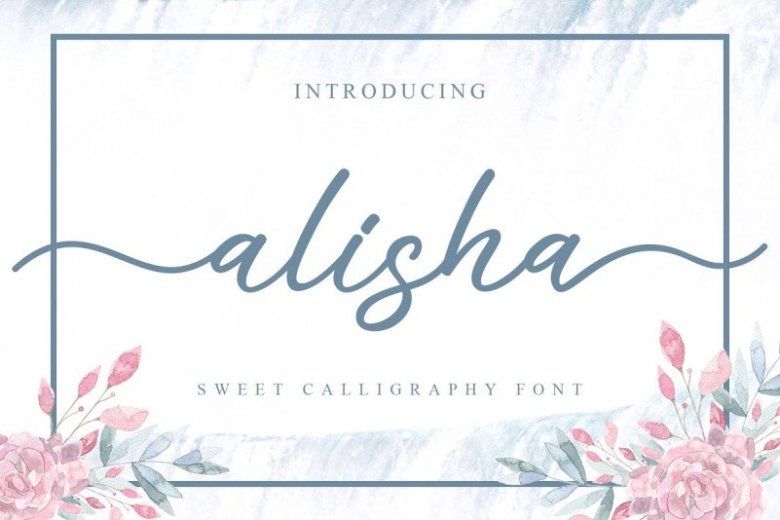
Alisha Sweet Calligraphy Font
This is unique stylish modern calligraphy fonts, combines from copperplate to contemporary typeface with a dancing baseline, modern and elegant touch! Introducing Alisha Font. Alisha – Sweet Calligraphy Font is a handwritten script font with a simple and sweet style, this font is great for your next creative projects such as watermark on photography, quotes, album cover, logo, business card, and many other design project.